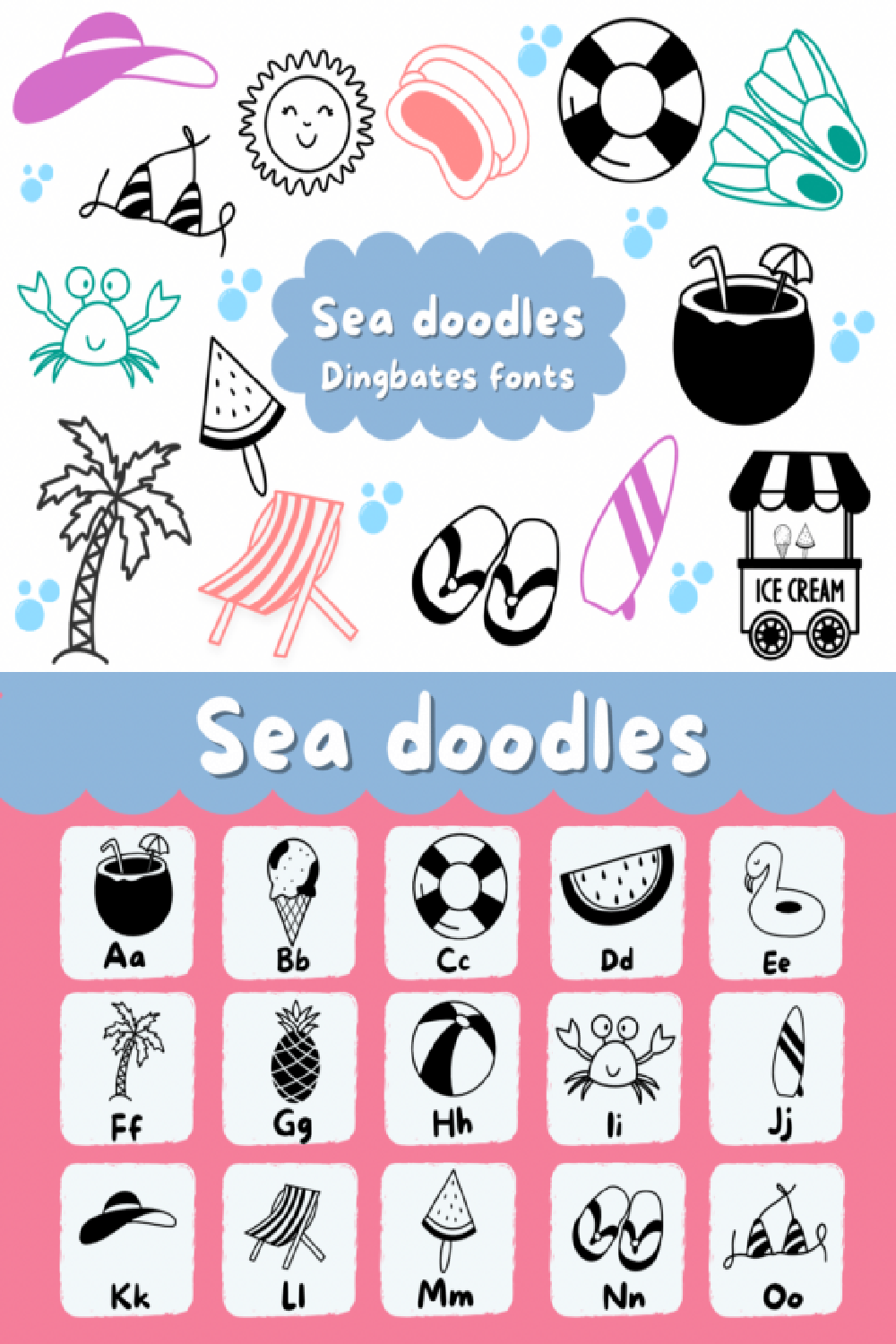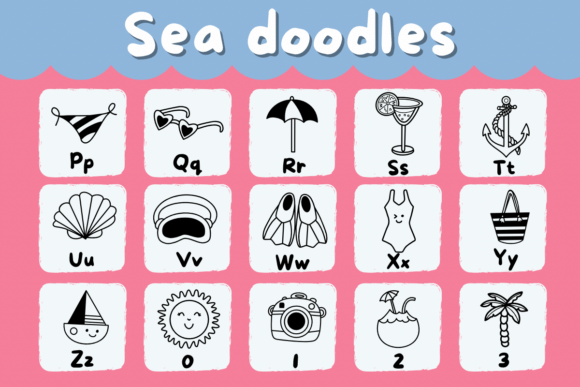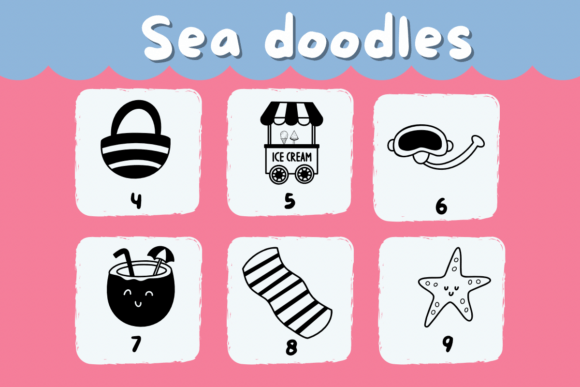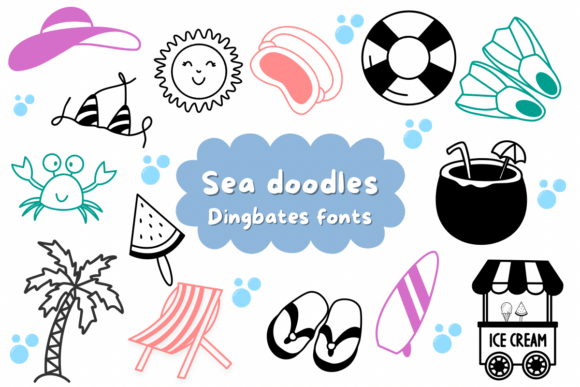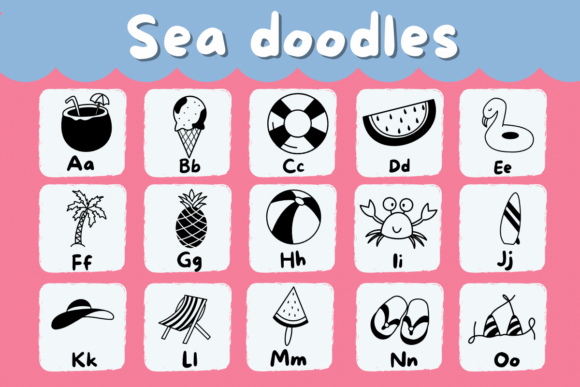
Sea Doodles Font: Cute Dingbats for Cricut & Summer DIY Projects!
About the Sea Doodles Font
The Sea Doodles Font is here to transform your projects with its distinctive character and style. Bring a splash of summer fun to your designs with
Sea Doodles
, a charming dingbat font packed with hand-drawn beach-themed illustrations. From sun hats and ice cream carts to playful crabs and flip-flops, this font adds personality to any project — perfect for kids’ crafts, vacation posters, party invites, and